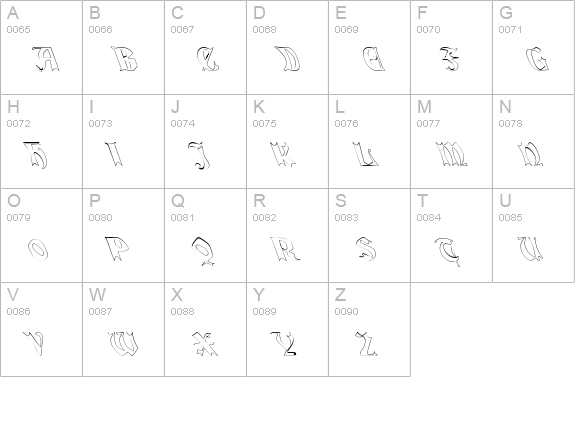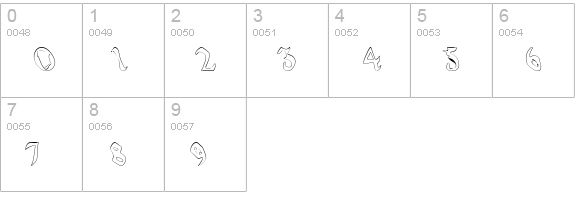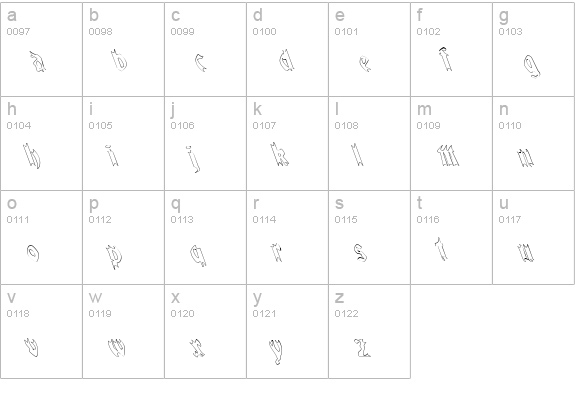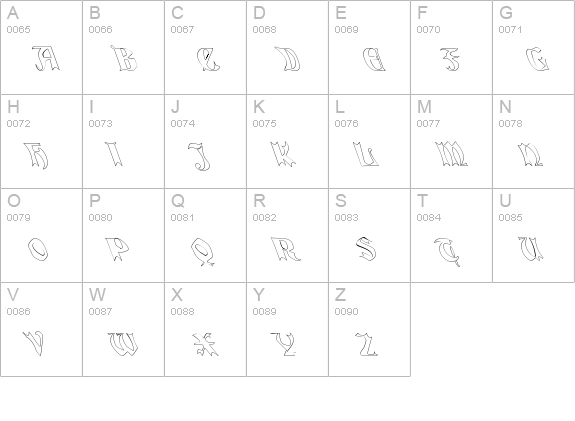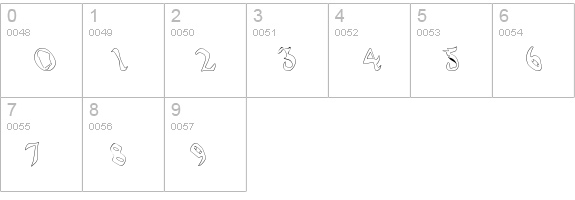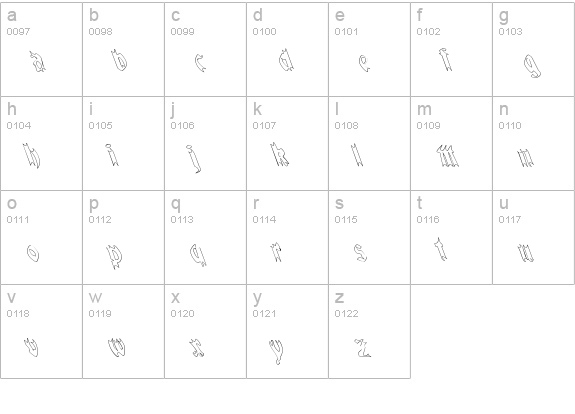
QuaelGothicHollowLeftyCondensed Font Details
QuaelGothicHollowLeftyCondensed is a captivating and edgy font that will add a touch of mystery and intrigue to any design project. This unique typeface combines the elegance of Gothic lettering with a modern twist, resulting in a font that is both timeless and contemporary. With its condensed and left-leaning design, QuaelGothicHollowLeftyCondensed exudes a sense of dynamism and movement. Each letter is intricately crafted, featuring sharp edges and hollow details that create an eye-catching visual effect. Whether used for headlines, logos, or promotional materials, this font will instantly grab attention and leave a lasting impression. One of the most appealing aspects of QuaelGothicHollowLeftyCondensed is that it is free to download. This means that designers, artists, and creatives from all walks of life can access and utilize this stunning font without any financial burden. The font can be freely downloaded at FontsMarket.com, a reputable online platform that offers a wide range of quality fonts for designers to choose from. Furthermore, QuaelGothicHollowLeftyCondensed is incredibly versatile and can be used across a variety of design projects. Whether you're working on a dark and gothic-themed poster or a modern and minimalist website, this font will effortlessly adapt and enhance your overall aesthetic. Its condensed nature also makes it an excellent choice for projects with limited space, as it allows for maximum impact within a compact layout. In conclusion, QuaelGothicHollowLeftyCondensed is a captivating and versatile font that is freely available to download at FontsMarket.com. With its unique design and free accessibility, this font is a must-have for any designer looking to add a touch of elegance and intrigue to their creations. Download QuaelGothicHollowLeftyCondensed today and unleash your creativity like never before.